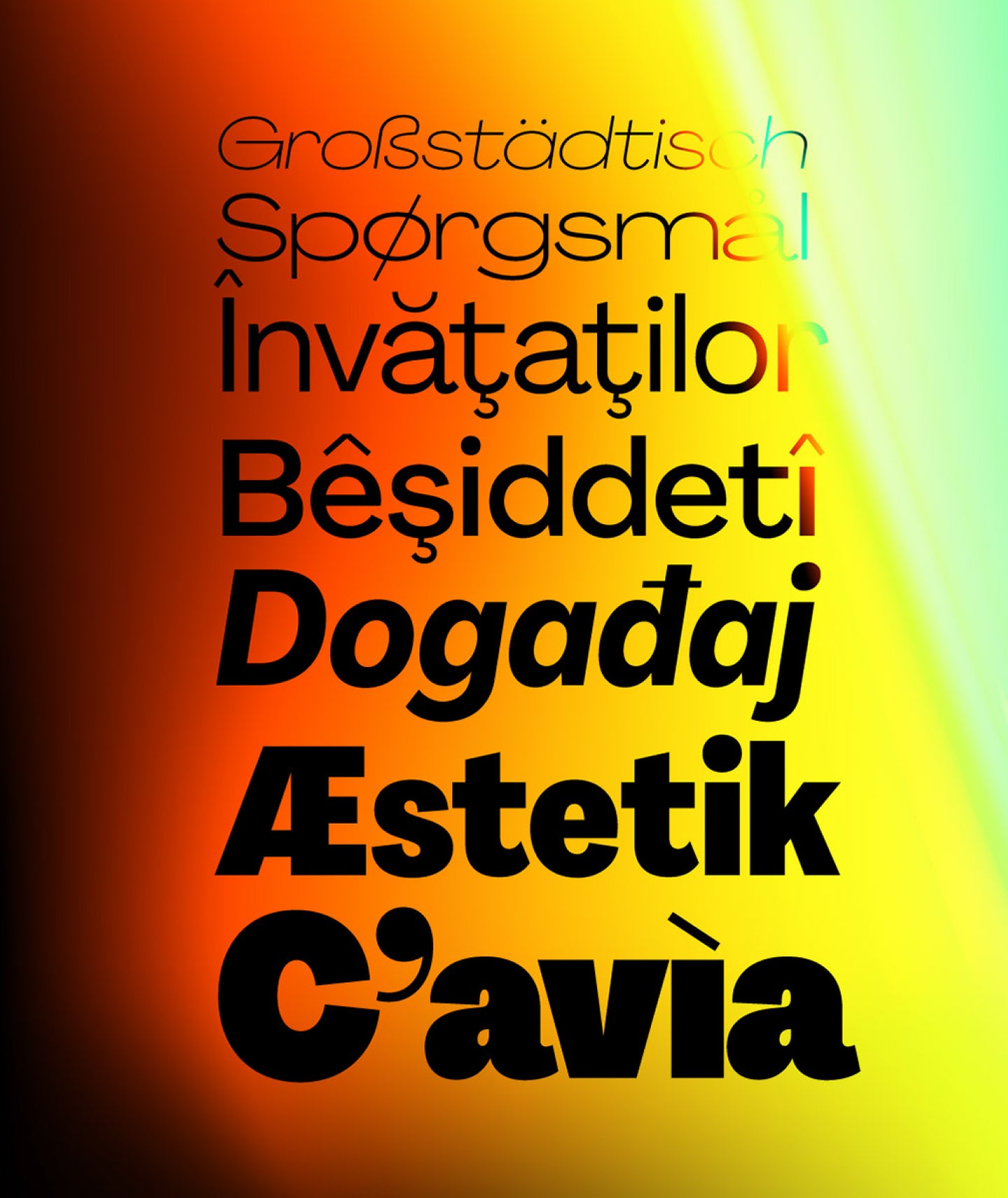
Agrandir
Agrandir is a contemporary serifless type family that flips modernist neutrality on its head.
Perfectly imperfect.
Agrandir is a contemporary serifless type family that celebrates the beauty of being imperfect. It was designed to be a brave antipode to neutral modernist fonts. Agrandir accepts its own shapes as they are – unaligned, quirky and funky. It celebrates humanity, not machines.
The type family consist of 74 fonts: 7 weights × 5 widths × Italics + 4 Text styles. Or just one 3-axes variable font. Agrandir features a fairly good number of OpenType stylistic alternatives, which can be turned on for individual letters or as overall presets – Default, Grotesk and Geometric. With its wide variety of flavors and super tight spacing Agrandir is gonna do a good job for big size headlines, websites, logos and posters, and its new text styles are great for body copy.